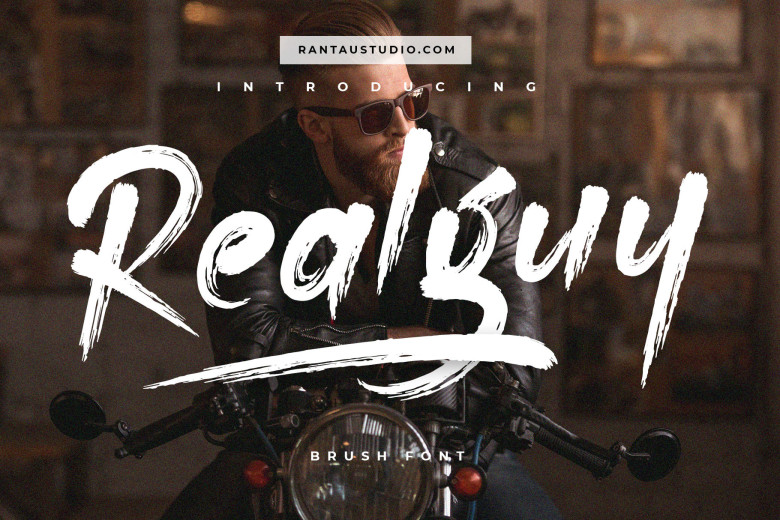
Realguy Font
Realguy is an authentic brush font with hand-painted imperfections visible when written or typed out by hand. It pairs beautifully with its complementary marker font as well as an extra set of Swashes for extra use.
Realguy Brush Font